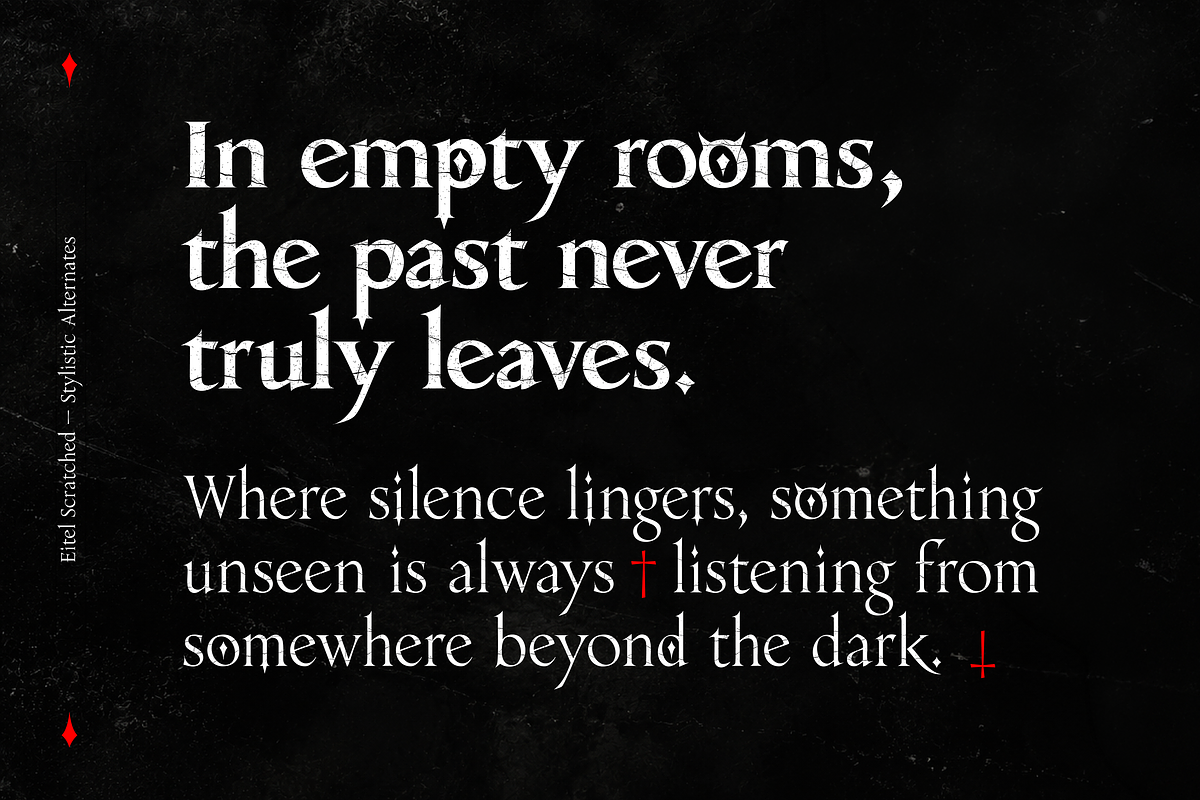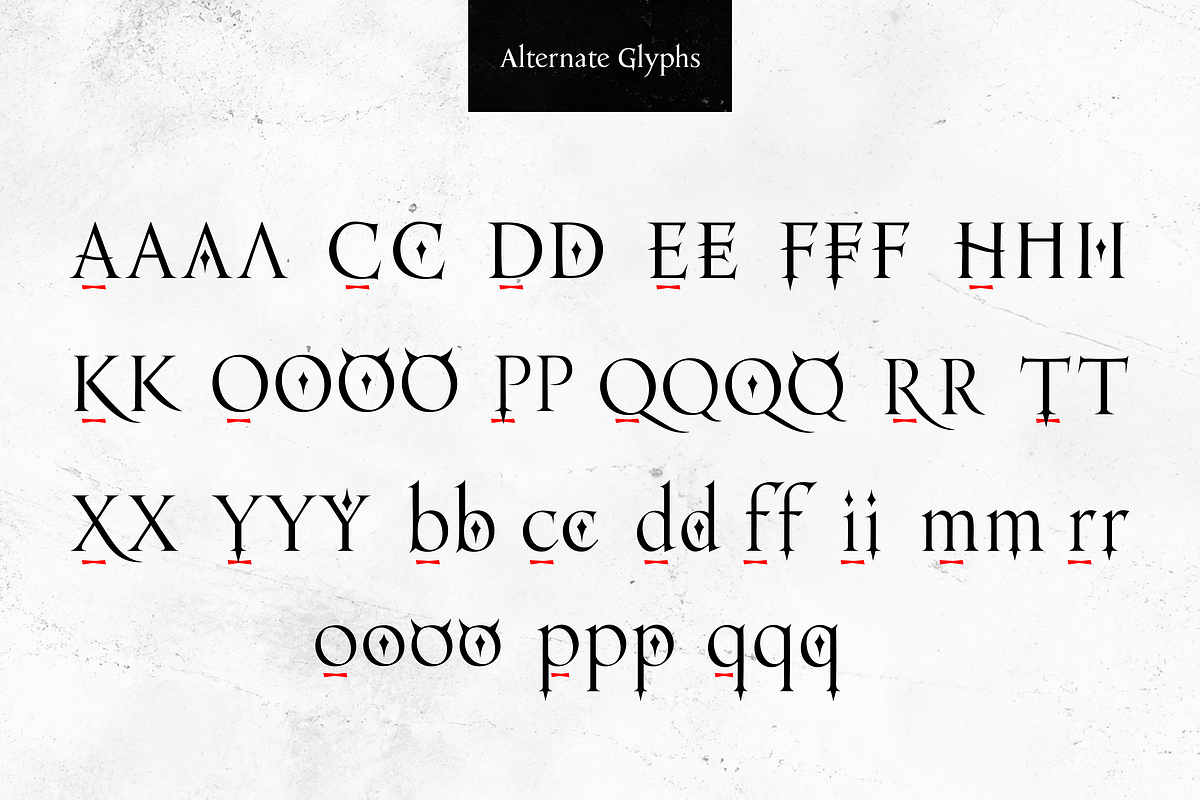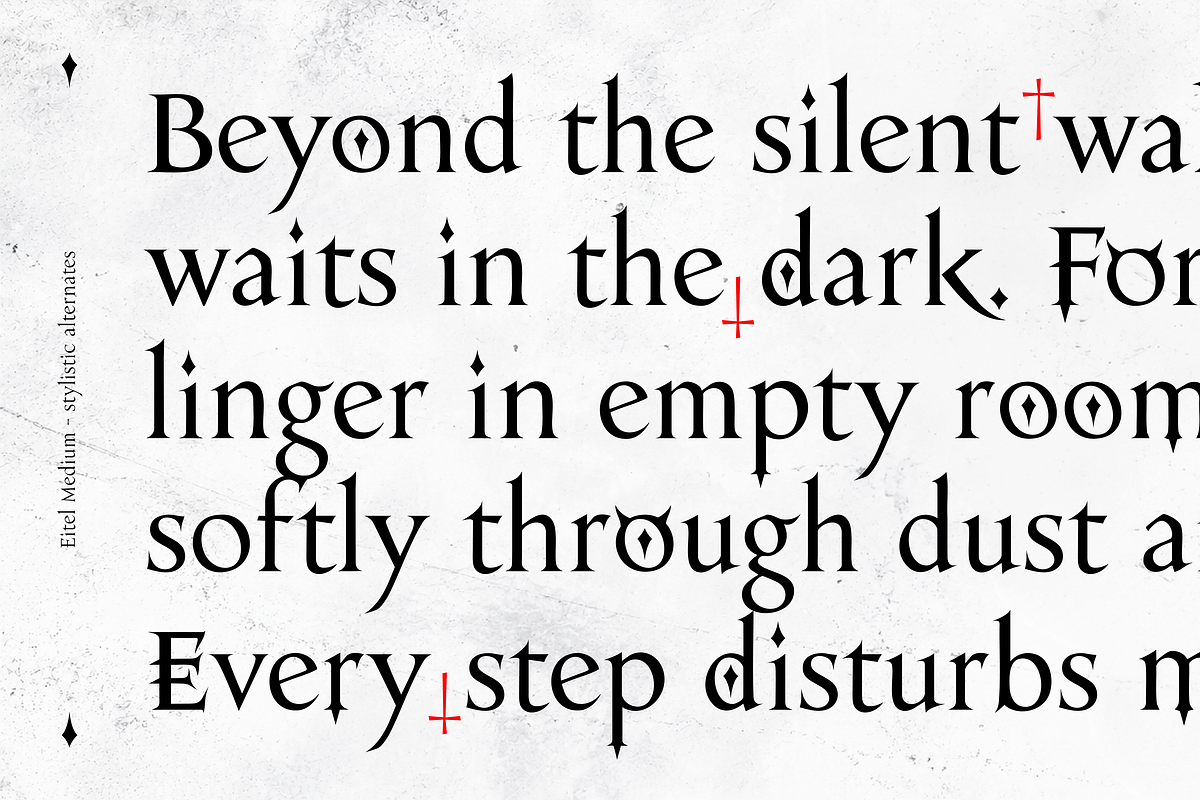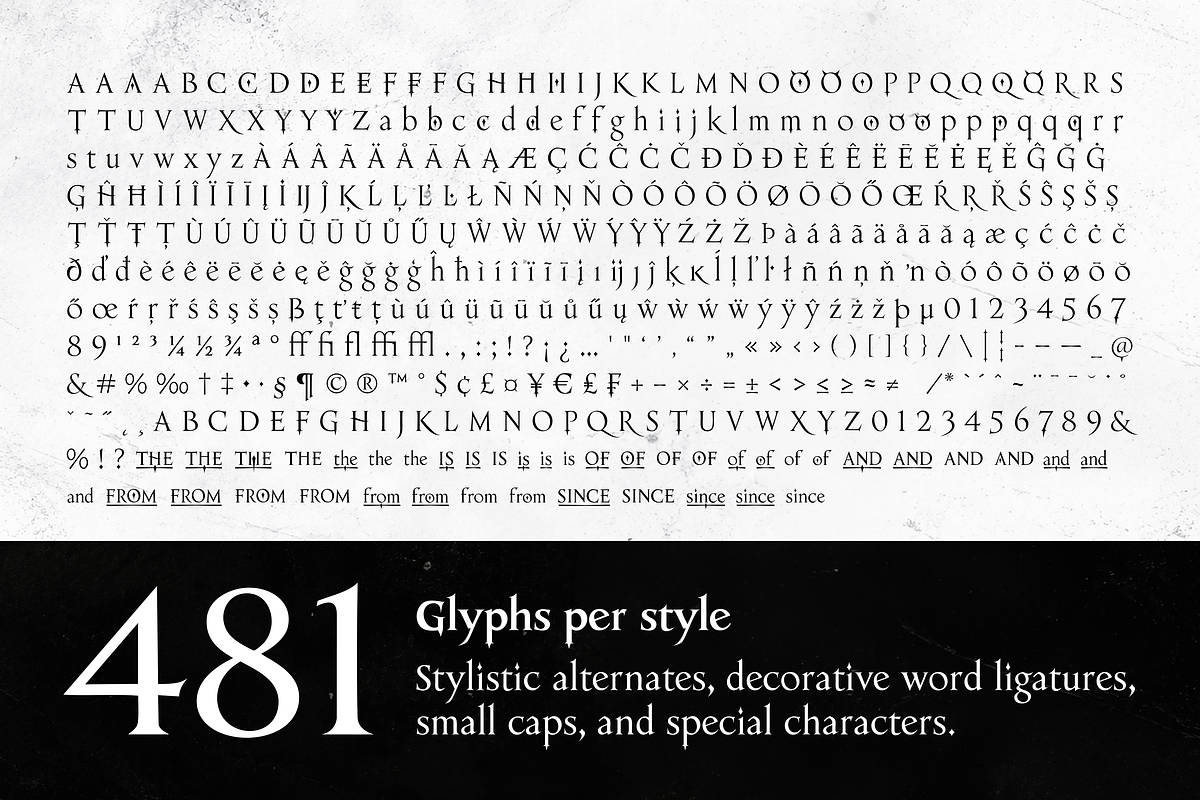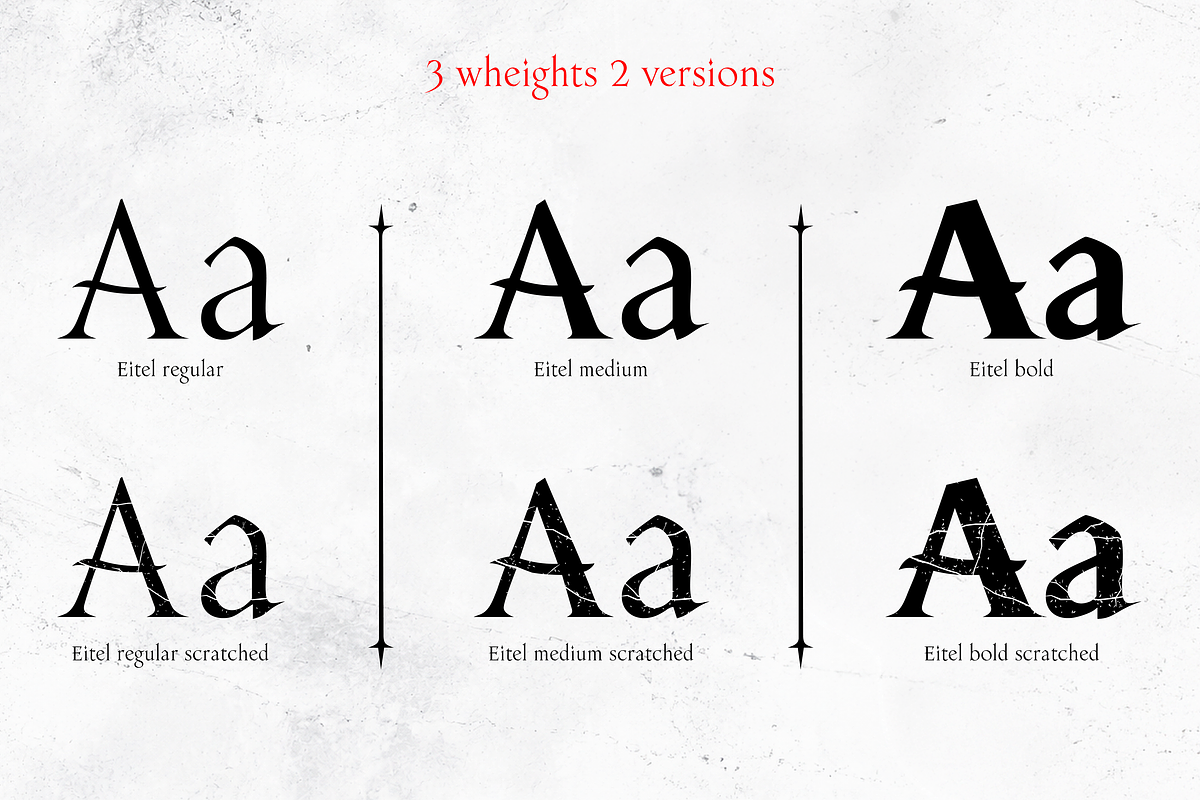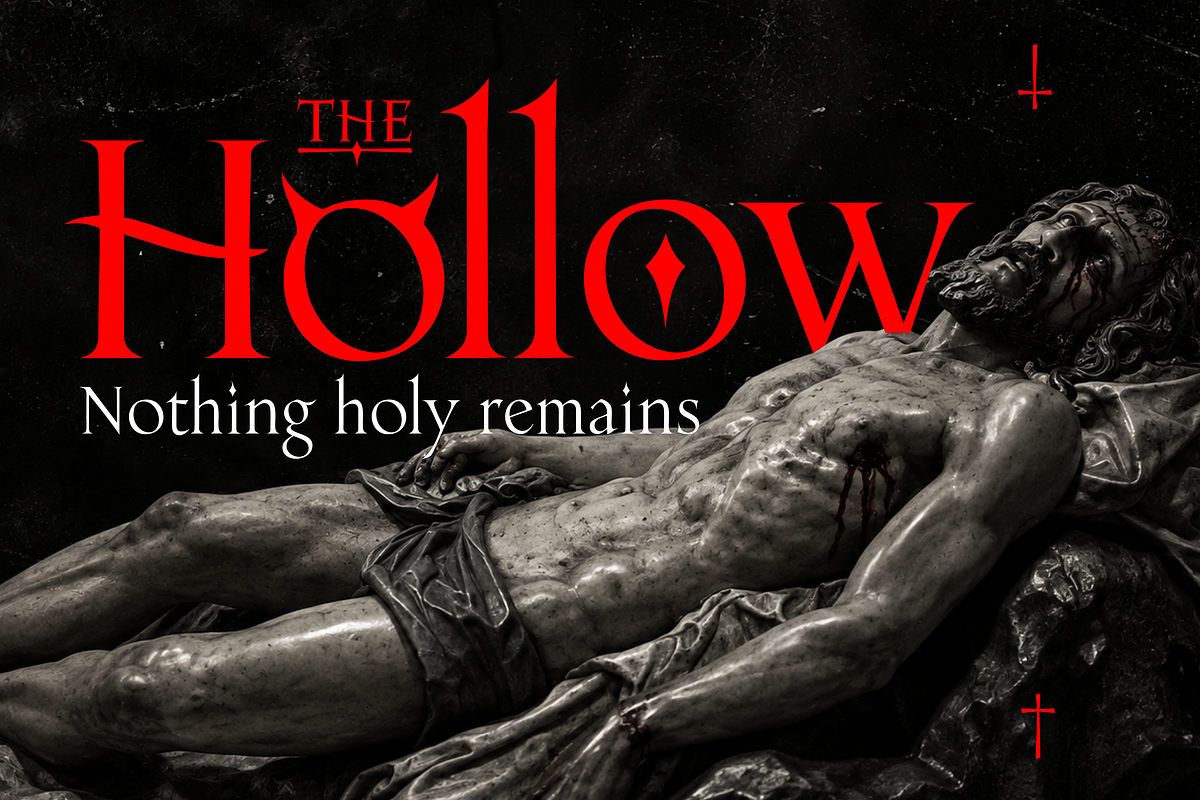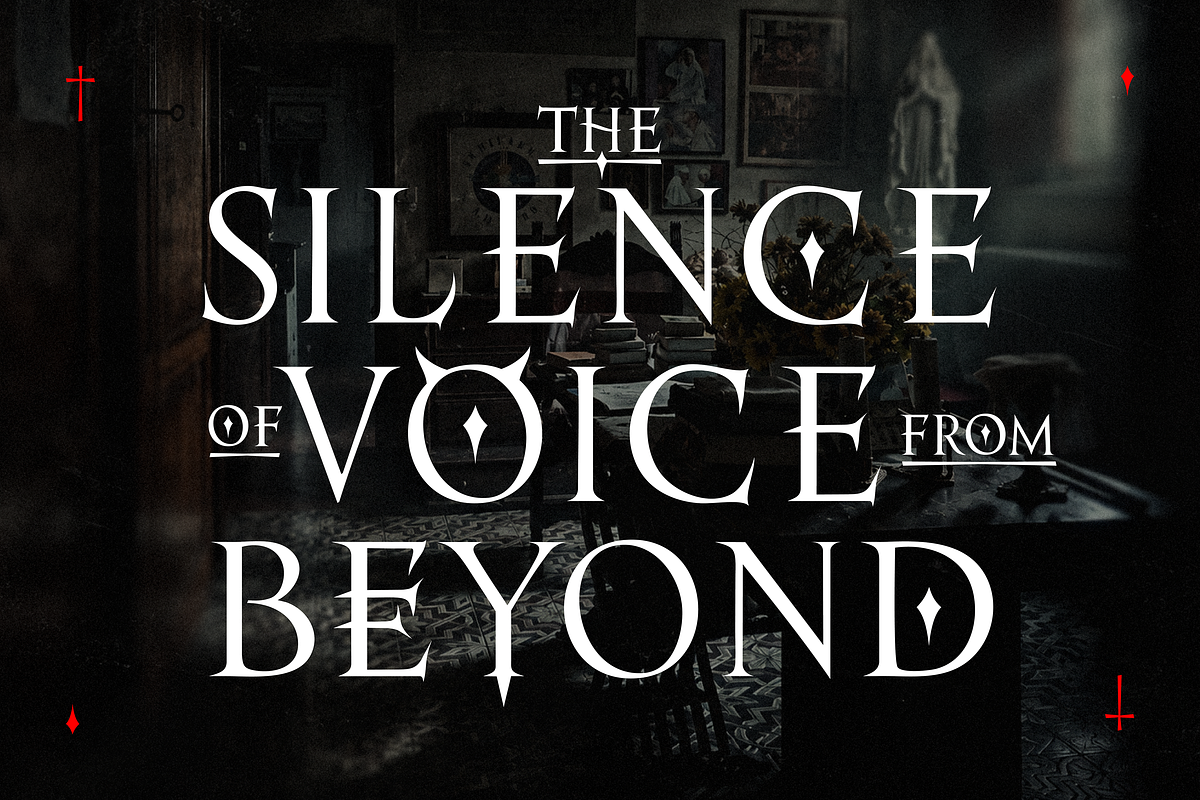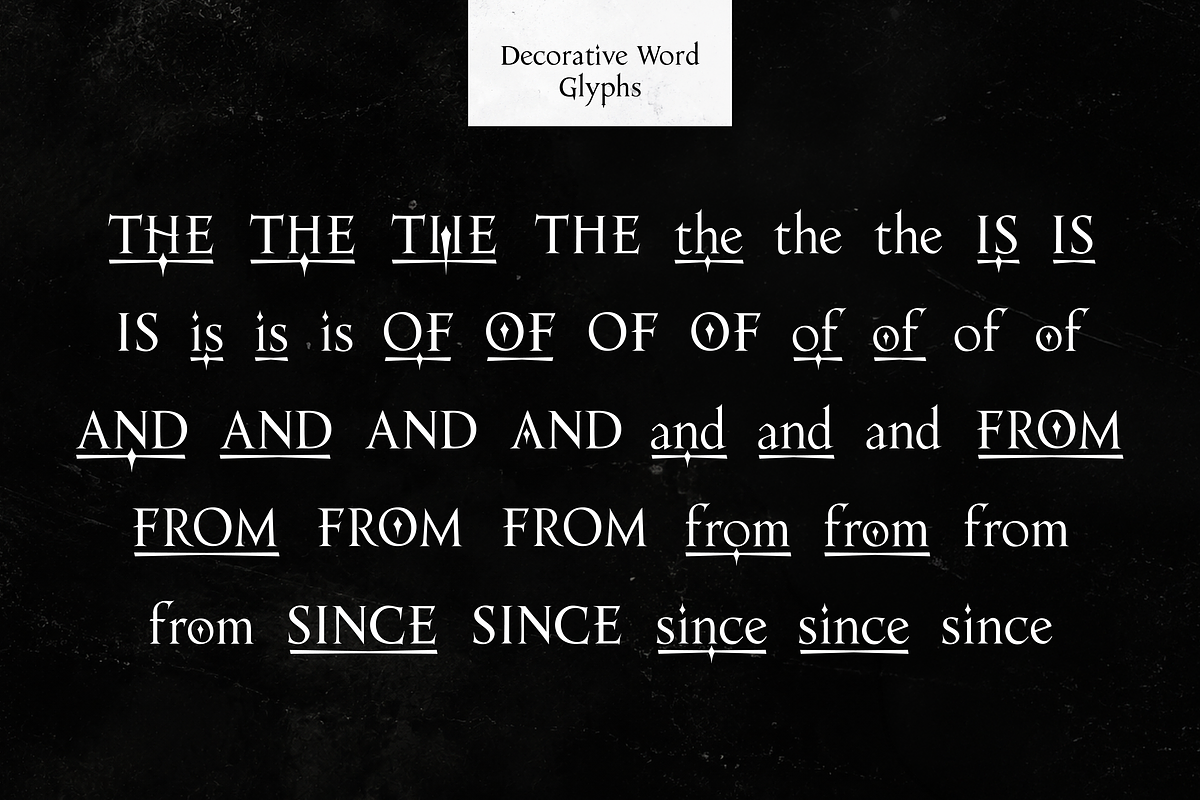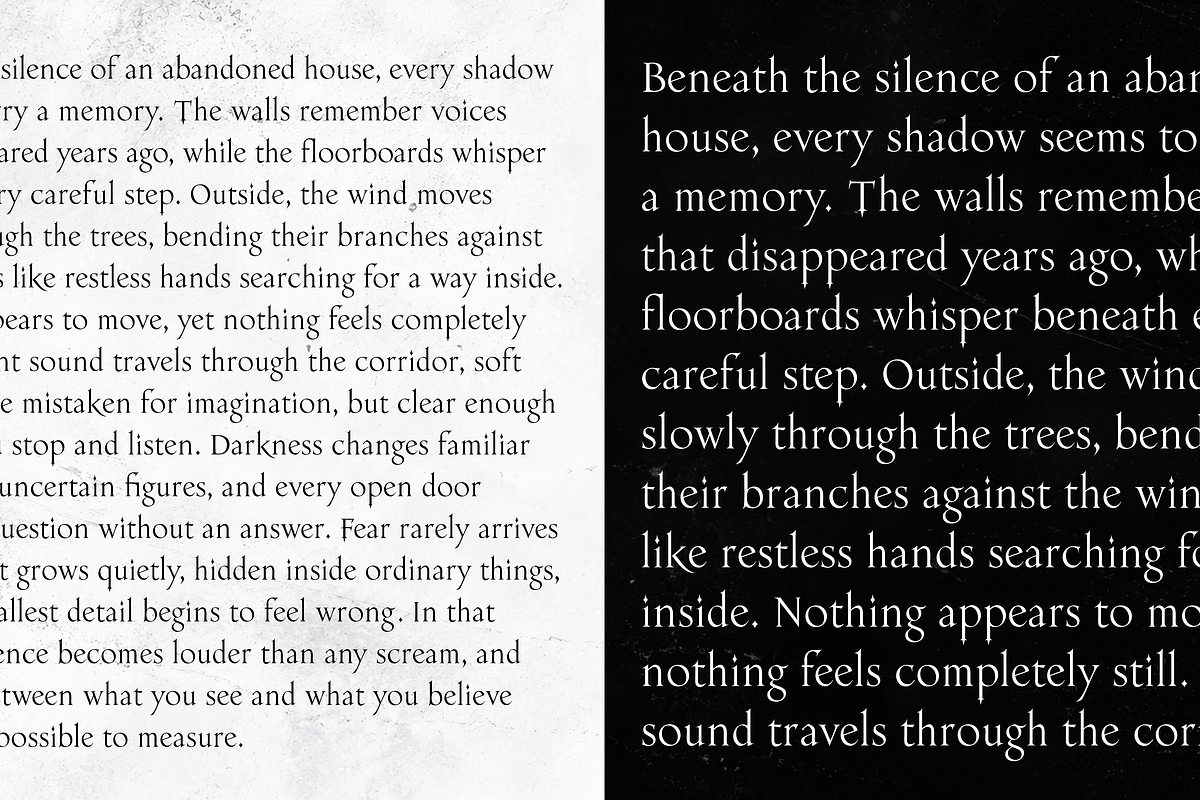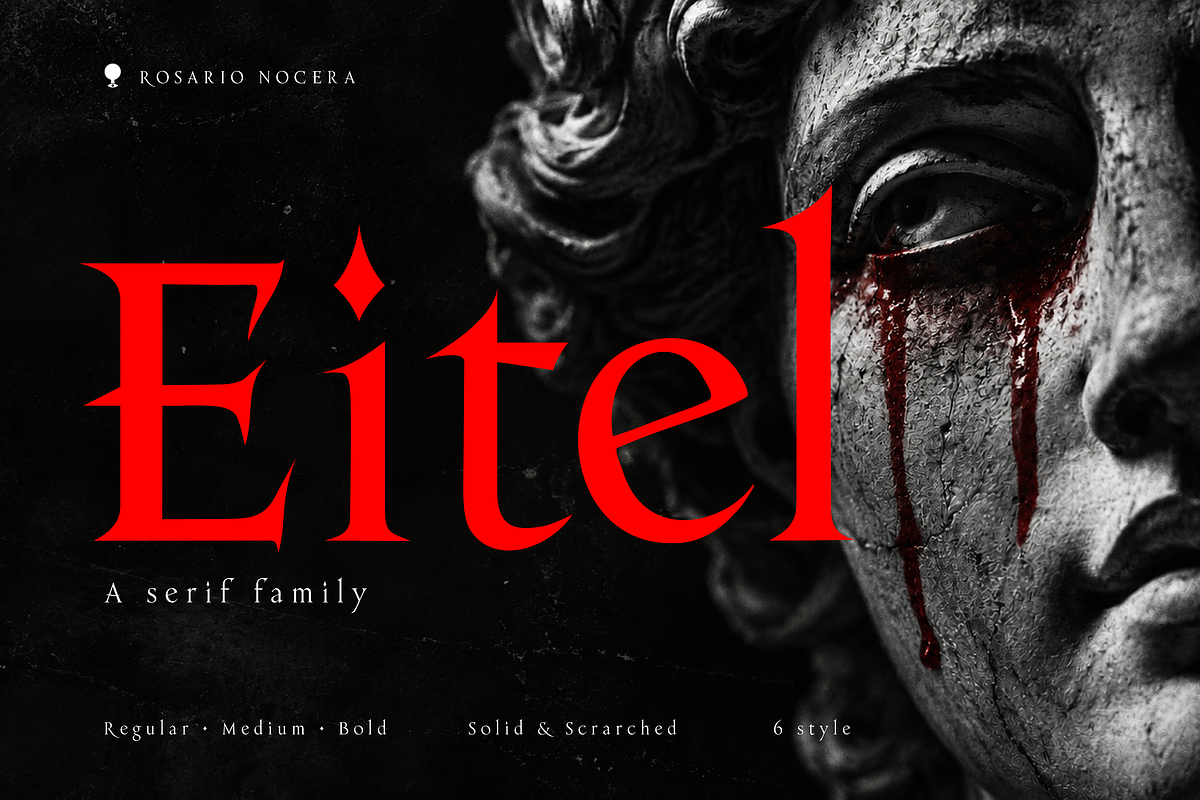
Eitel
Eitel is a serif type family designed for the worlds of horror, gothic fiction, and mystery. Its sharp serifs, flowing curves, and pointed details bring together classical elegance and an unsettling presence, giving words a distinctive character that feels both refined and sinister.
Designed for both display and text, Eitel moves comfortably from large, expressive headlines to smaller paragraphs and extended text layouts. It is a natural choice for book covers and interiors, film and television titles, theatre productions, album artwork, and posters. Its distinctive letterforms also lend themselves to branding and artwork that call for an atmosphere of suspense or a darker identity.
The family includes six styles: Regular, Medium, and Bold, each available in Solid and Scratched versions. Solid reveals the crisp contours and sculptural qualities of the letterforms, while Scratched introduces a worn texture that adds depth and a sense of decay. The three weights offer flexibility for creating hierarchy across titles, supporting text, and complete editorial compositions.
Each style contains 481 glyphs, including stylistic alternates, small caps, decorative word ligatures, and special characters. Horned forms, diamond details, and extended terminals allow designers to give selected letters a more dramatic expression. Decorative versions of words such as “the,” “of,” and “and” offer further possibilities for composing distinctive titles, bringing the smallest elements into the overall design.